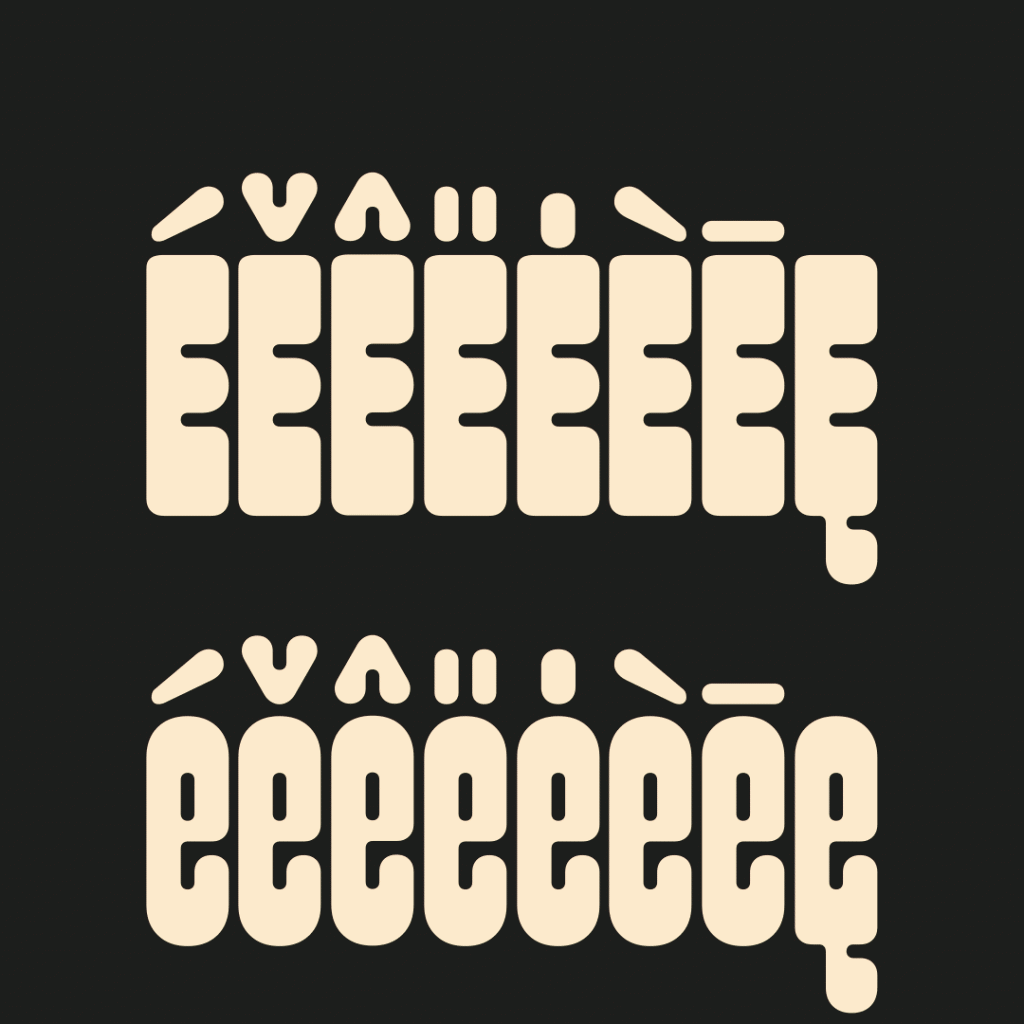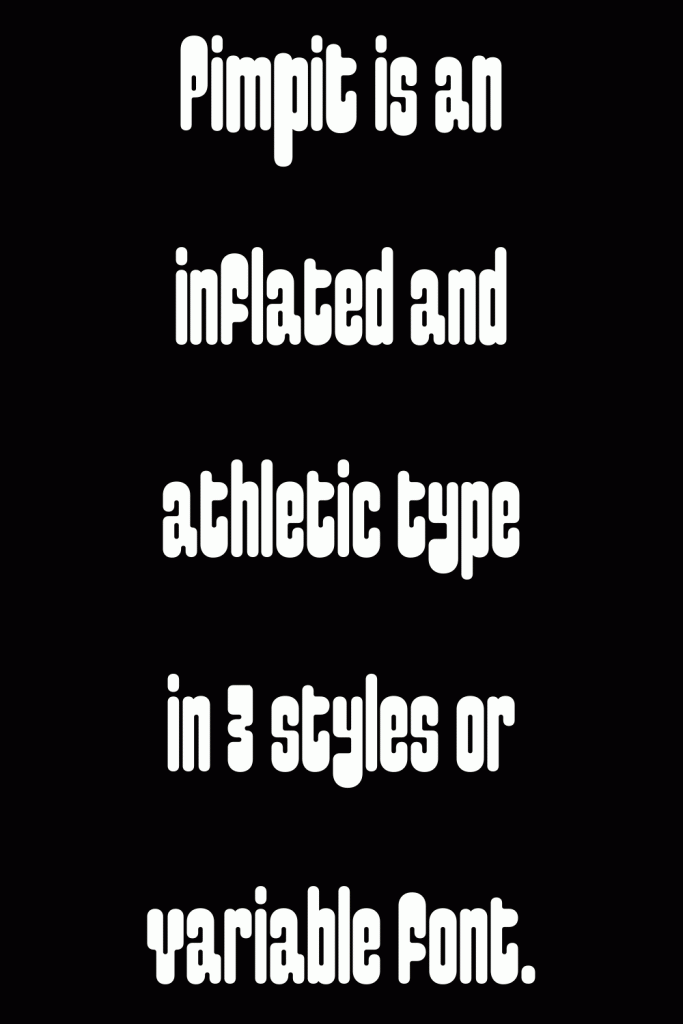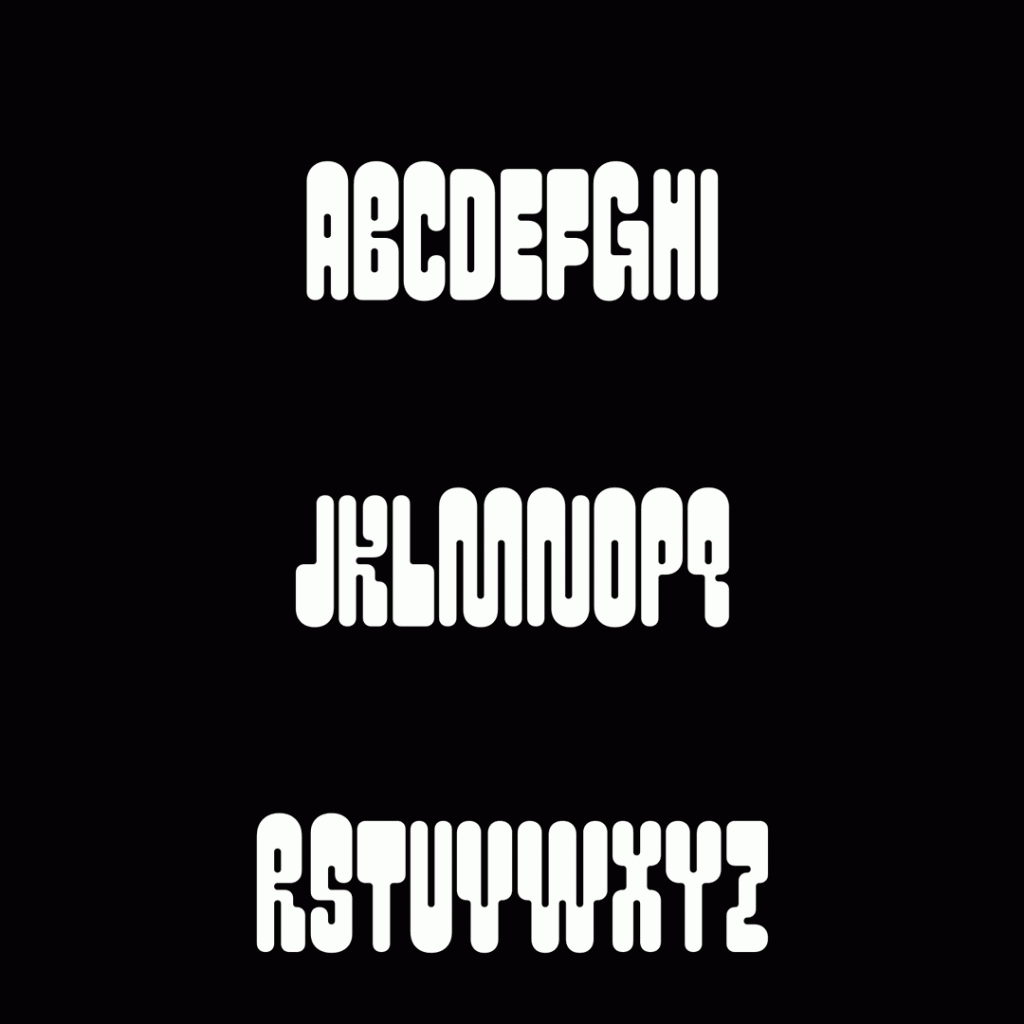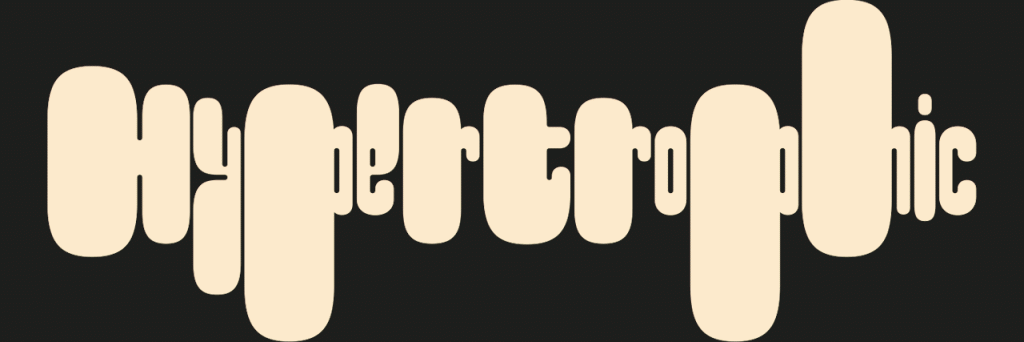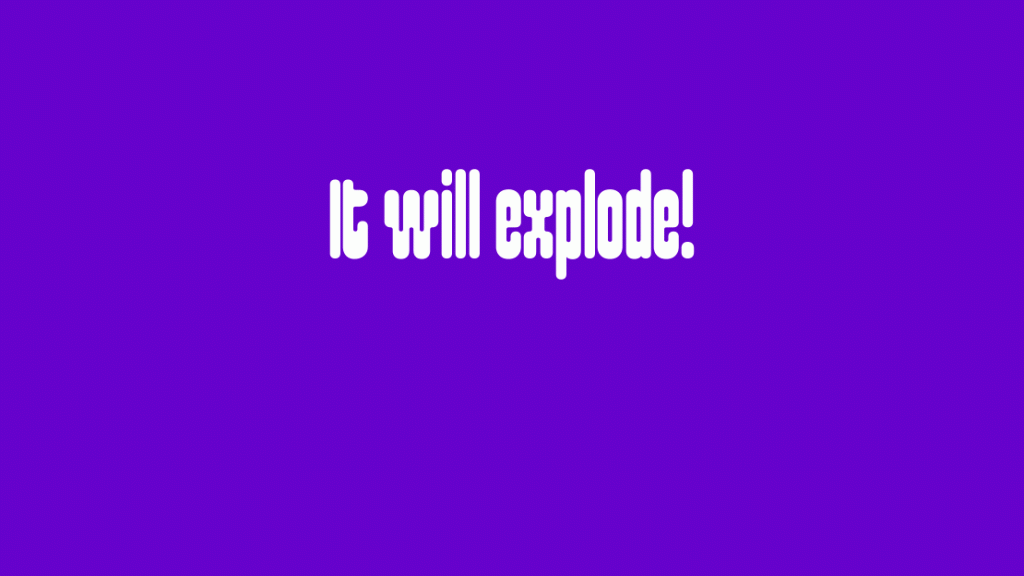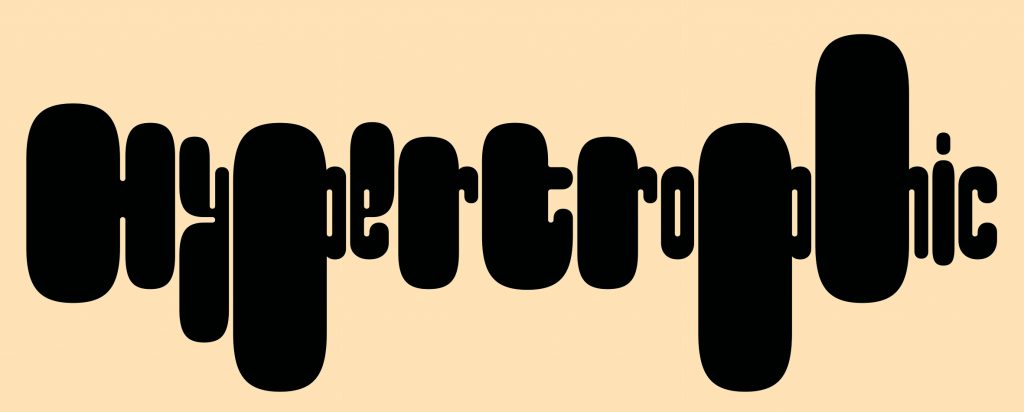
Name: Pimpit
Designer: Benoît Bodhuin
Foundry: BB Bureau
Release Date: June 2021
Back Story: Nantes-based graphic designer and typographer Benoît Bodhuin first started drawing Pimpit in November last year for a personal graphic deign project, aiming to create an “evocative” typeface with letters that can swell and contract. It was largely born of a “desire to have fun and get out of the usual codes of typography,” says Bodhuin; though the ways in which it was drawn in the early stages echo his processes on previous fonts, such as 2020’s idiosyncratic BallPill, and 2018’s Pickle-Standard, an equally playful, offbeat display font.
“The challenge with Pimpit—a funny challenge—was to define which parts were most appropriate for swelling and to what extent,” the designer says, describing it as an “athletic and amphetamine-breathing type” in that it’s “abnormally inflated, excessive, hypertrophied.”
Why’s it called Pimpit? Pimpit’s name leans on the definition of “pimp” in its verb form, as in “to add things to something to make it look or sound better, especially by making it more individual,” as defined in the Oxford dictionary, or in early ’00s MTV series Pimp My Ride. That’s because the variable font can take on any number of permutations, allowing users to pay with the size to which the font swells and the directions in which it does so. The name is also a play on “pump,” a nod towards muscle-pumping gym bros: “as an analogy to the human body, it’s ultra athletic,” says Bodhuin.
What are its distinguishing characteristics? In addition to its variable version, Pimpit is available in three weights to which its designer has ascribed unusual descriptors: the “non-sporting version;” a medium weight billed as “the muscular version;” and bold, or “the body-built version.”
The most unusual quality of this deliciously playful, bouncy-looking font is its multifarious permutations in the way it can expand in four directions—up, down, right or left—“so that once inflated the typeface no longer respects any height or width convention,” Bodhuin explains.
What should I use it for? Pimpit is certainly no shrinking violet, so it’s not one for more serious, reserved, or conservative uses. A display font to the max, it’s perfect for posters, record sleeves, editorial design projects, and digital applications thanks to its ability to flourish while in motion. “Our society is a society of excess, and this typeface represents excess in a very figurative way,” Bodhuin explains, “so perfect its to materialize all this excess—consumption, information, sugar, violence, time spent on social networks…”
He adds that it would be interesting to see designers boldly using Pimpit for totally unexpected uses in sectors usually “opposed fields to its crazy expression,” such as luxury or institutional branding projects. As for more conventional uses, he suggests designs for chewing gum brands.
What other typefaces do you like to pair it with? Since Pimpit is such a bold, dynamic, and powerfully cute font, conventional wisdom would suggest that it’s best to stick to pared-back sans serifs to use alongside it. However, its designer simply tells us “Colored Emoji are perfect with it :-)”